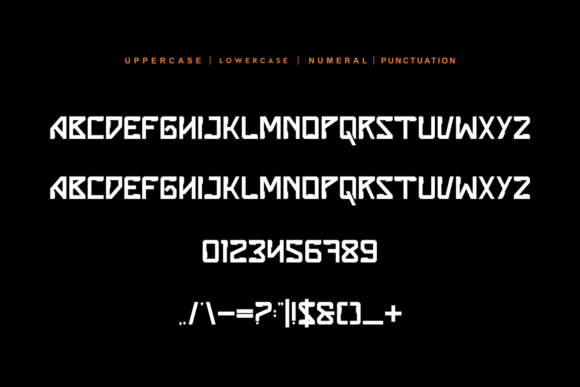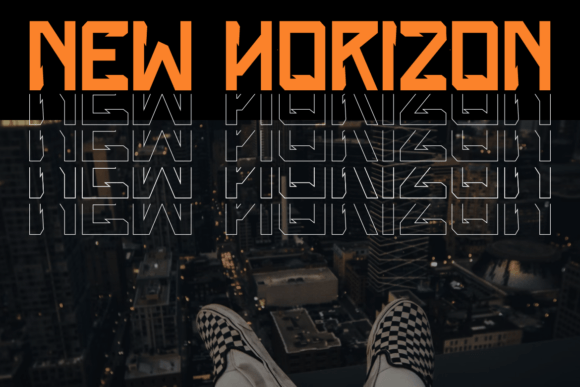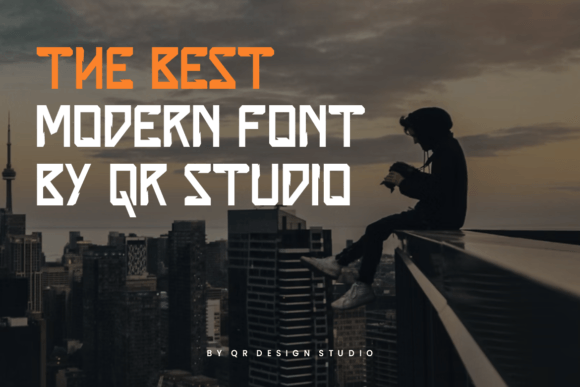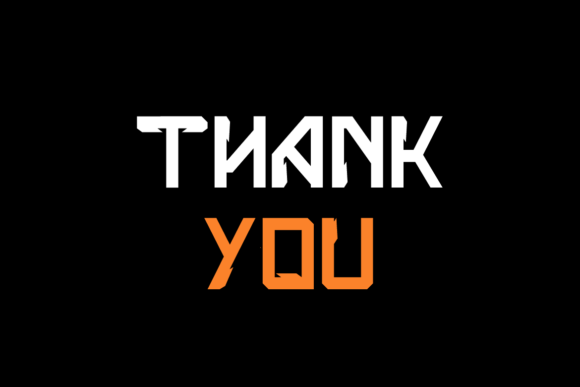
The Birth of a Bold New Font: Ambonde Font
Have you ever been brainstorming ideas for a branding project and suddenly, a spark of creativity hits you? That’s exactly what happened when designers stumbled upon the Ambonde Font, a game-changing decorative font that’s about to take the design world by storm.
Created with versatility in mind, Ambonde Font is the perfect addition to any branding project. From logos and websites to gaming and social media, this font is sure to make a statement. Its unique blend of boldness and elegance makes it an instant favorite among designers.
Whether you’re a seasoned pro or just starting out, Ambonde Font is a valuable asset to have in your design toolkit. Its wide range of applications and adaptability make it a must-have for any creative project. Get ready to unleash your creativity with the Ambonde Font!
Ambonde Font Key Features
- Unique Characteristics: Ambonde Font features a unique blend of African and modern design elements, making it a standout choice for projects that require a distinct and cultural touch.
- Unicode Support: The font includes comprehensive Unicode support, allowing for the display of a wide range of languages and characters, including African languages and scripts.
- Font Weight: Ambonde Font is available in multiple weights, including light, regular, bold, and extra bold, providing flexibility for designers to create a range of visual effects.
Ambonde Font Review
When I first laid eyes on the Ambonde Font, I was immediately drawn to its unique, modern aesthetic. The font’s clean lines and geometric shapes make it perfect for a wide range of designs, from logos to brochures. ✨
One of the things that really sets Ambonde apart is its versatility. It comes in a variety of weights and styles, making it easy to customize to suit your specific needs. Whether you’re looking for a bold, eye-catching headline or a subtle, elegant body text, Ambonde has got you covered. ✨
What Doesn’t Quite Work
- ⚠️ Limited language support: While Ambonde is available in a range of languages, it’s not a comprehensive set, which may limit its use for international projects.
- ⚠️ Limited typographic features: Ambonde doesn’t offer a lot of advanced typographic features, such as ligatures or alternate characters, which may be a drawback for designers who require a high level of customization.
Overall, I think the Ambonde Font is a solid choice for designers who want a modern, versatile font that’s easy to use. While it may have some limitations, its clean design and wide range of customization options make it a great addition to any design arsenal.
Getting the Most Out of Ambonde Font
To get the most out of Ambonde Font, try the following tips:
- Pair Ambonde Font with other fonts to create a unique and eye-catching design.
- Use Ambonde Font for headings and subheadings to create a clear hierarchy of information.
Ambonde Font is perfect for:
- Creating eye-catching posters and flyers.
- Designing social media graphics and ads.
- Developing presentations and reports.
Alternatives to Ambonde Font
Ambonde Font is a modern sans-serif font, but sometimes designers need alternatives for specific projects. Here are a few options:
Montserrat is a geometric sans-serif font designed for digital use. It’s ideal for use in titles and headings due to its clean lines and modern feel. Montserrat is more condensed than Ambonde Font, making it a great choice for titles with limited space. It’s also more versatile and comes in a wider range of weights.